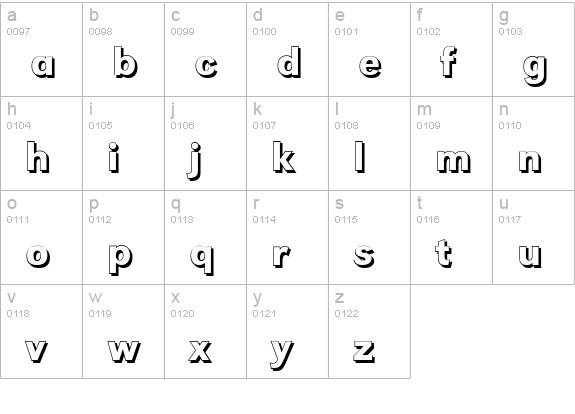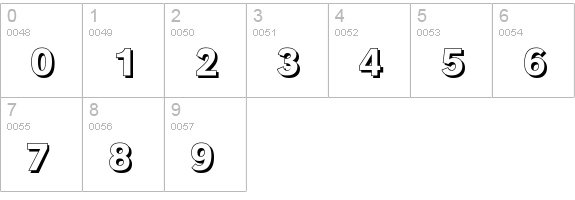
GroteskSh-Medium-Regular is a balanced, medium-weight variant in the GroteskSh typeface family \xE2\x80\x94 well suited to sub-headlines, navigation, and balanced editorial work.
GroteskSh-Medium-Regular font is a versatile and modern typeface that strikes the perfect balance between minimalism and sophistication. With its clean lines and geometric shapes, this font exudes a sense of contemporary style and professionalism. Whether you're designing a sleek website, crafting a stylish logo, or creating eye-catching print materials, GroteskSh-Medium-Regular font is sure to make your text stand out. And the best part? GroteskSh-Medium-Regular font is available for free download at FontsMarket.com. So you can easily access this high-quality font and enhance your design projects without breaking the bank. Don't miss out on the opportunity to elevate your typography game with GroteskSh-Medium-Regular font - download it now and start creating stunning visuals today!